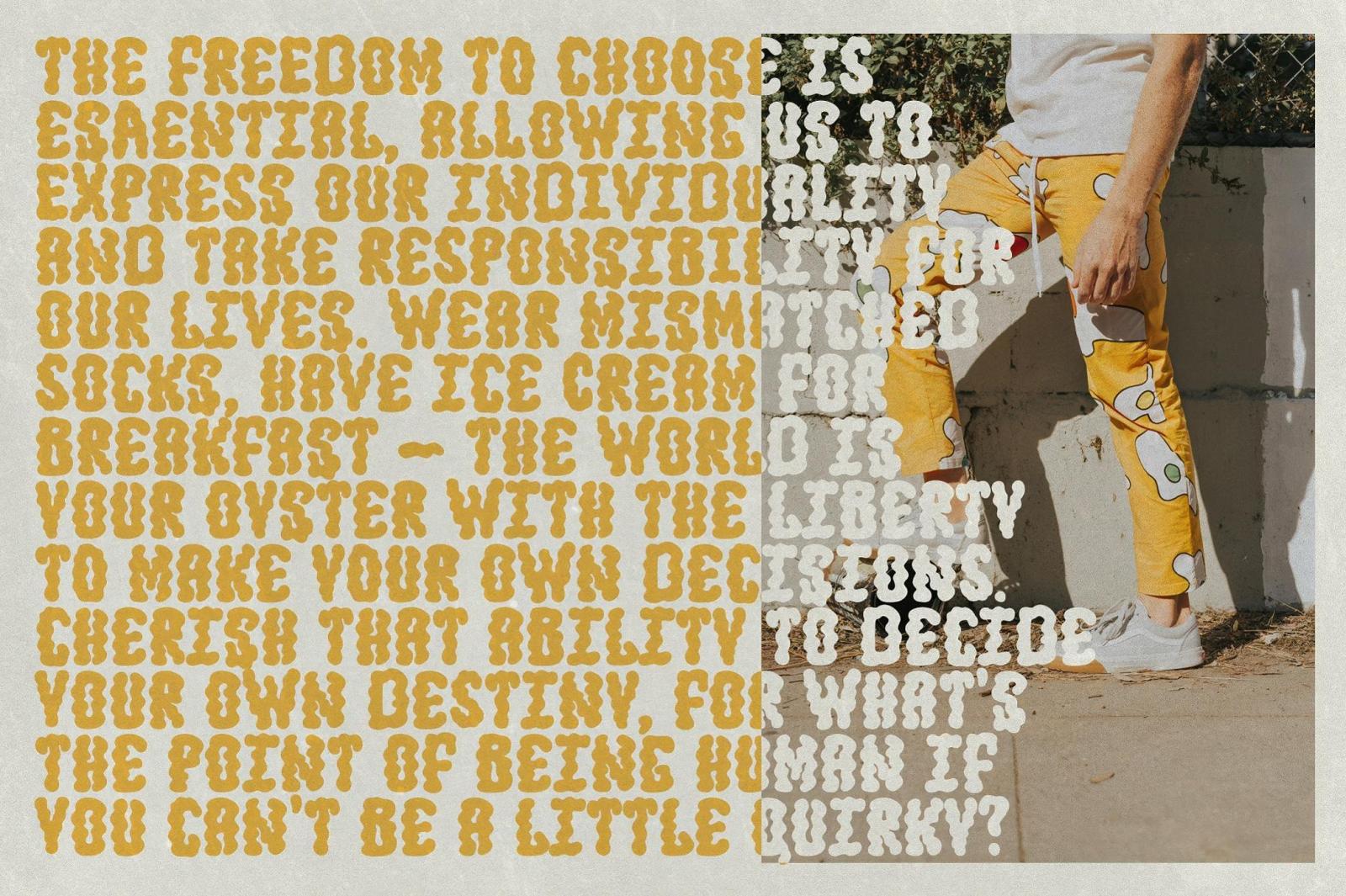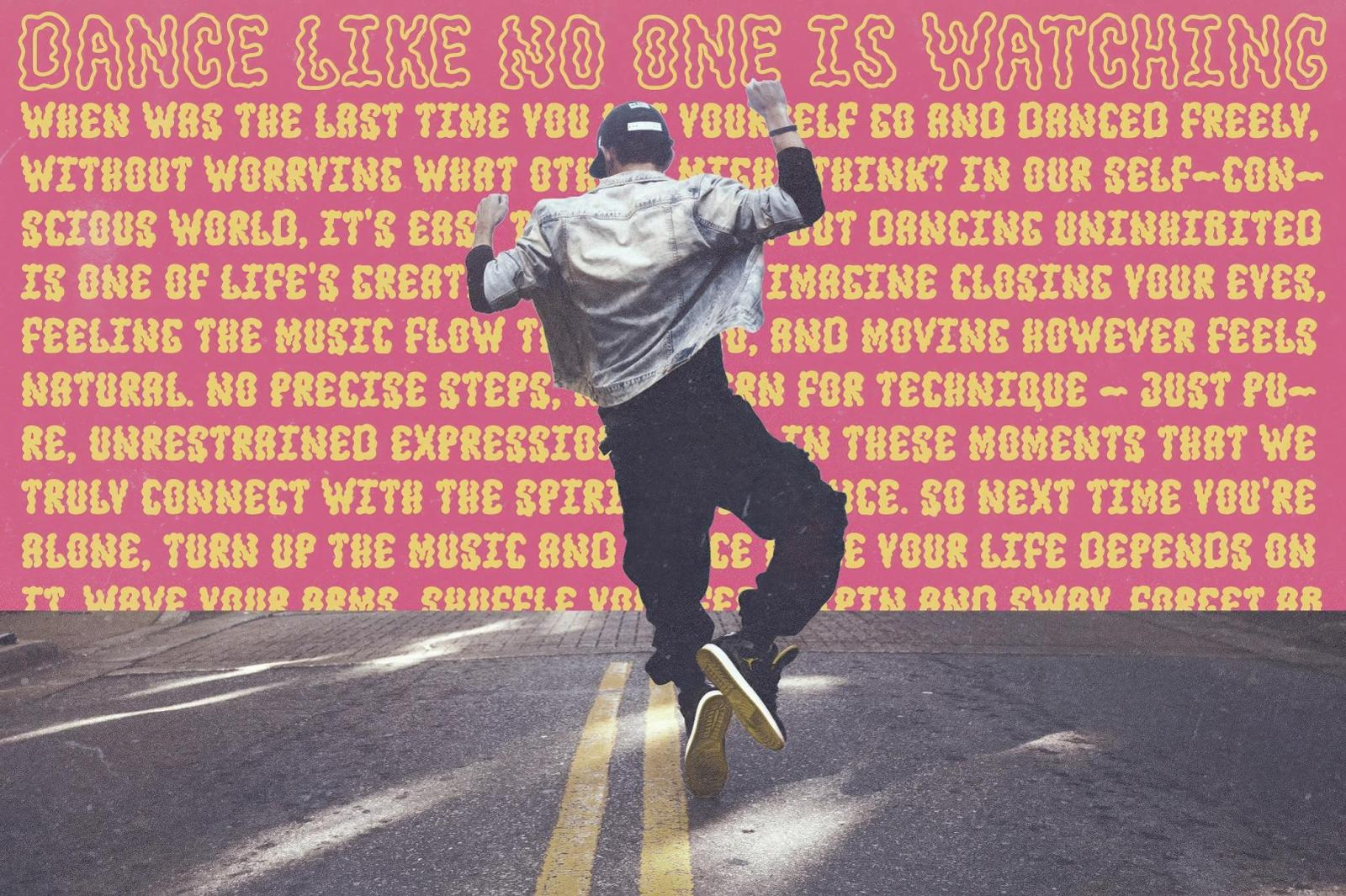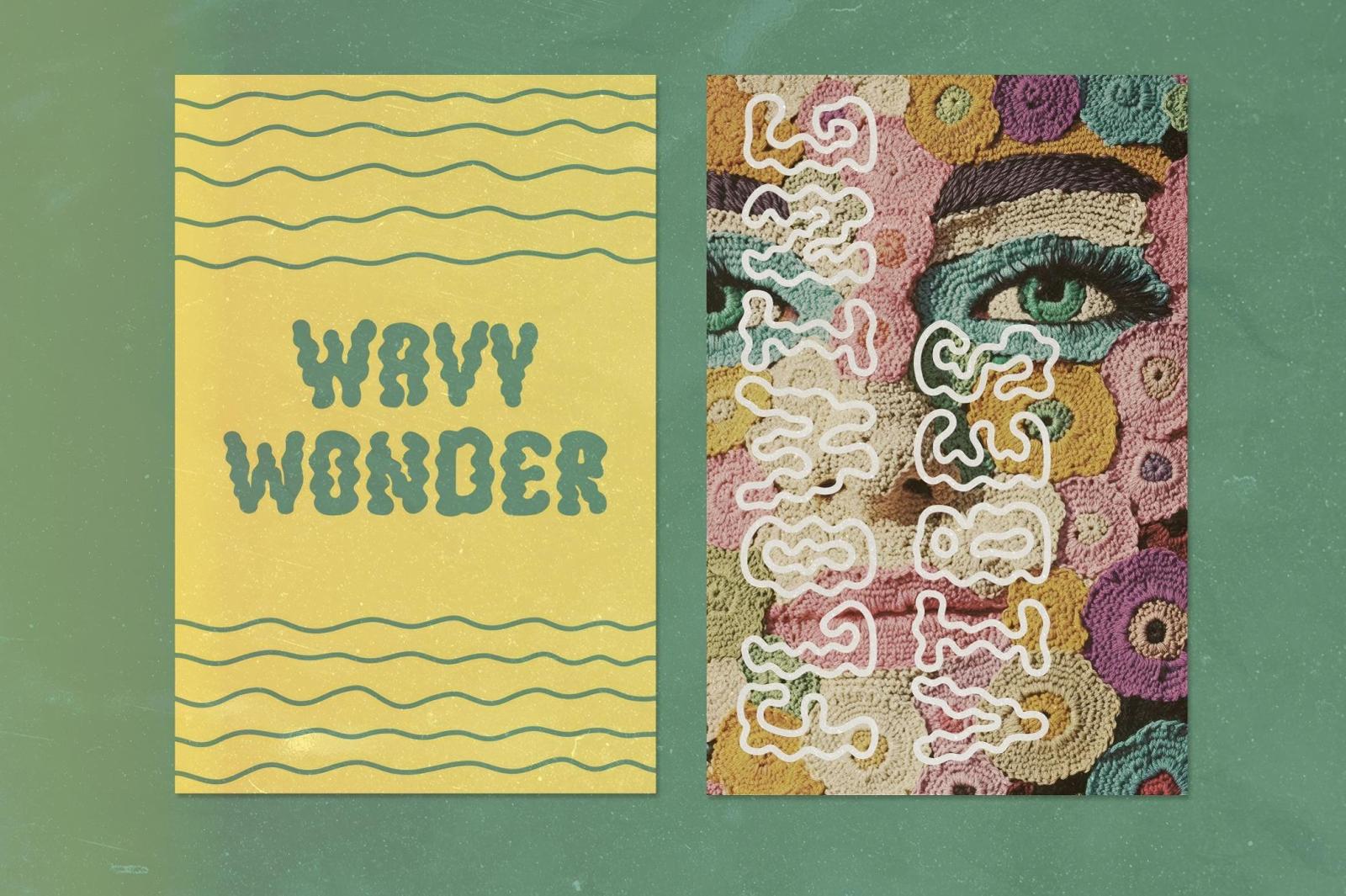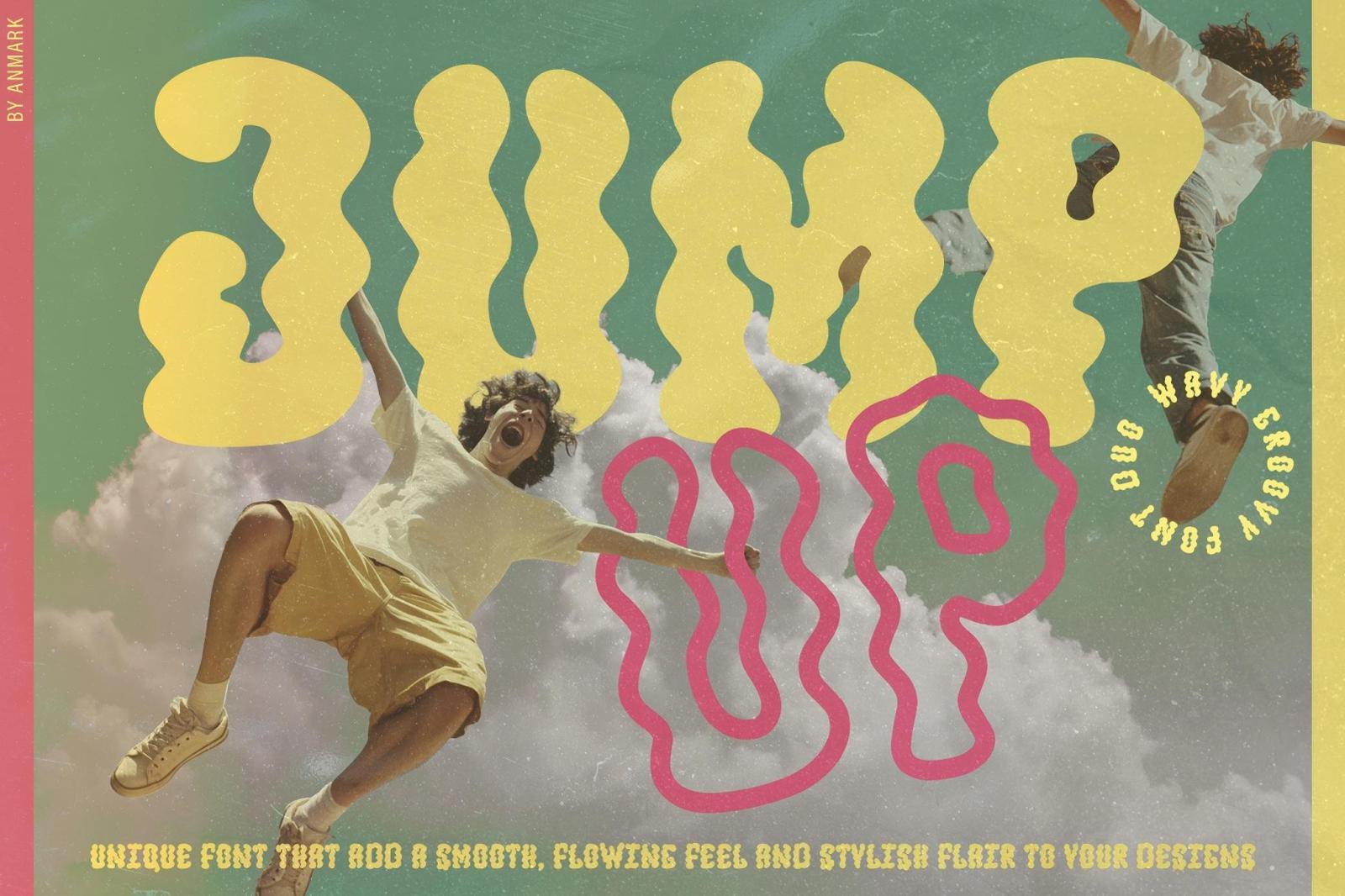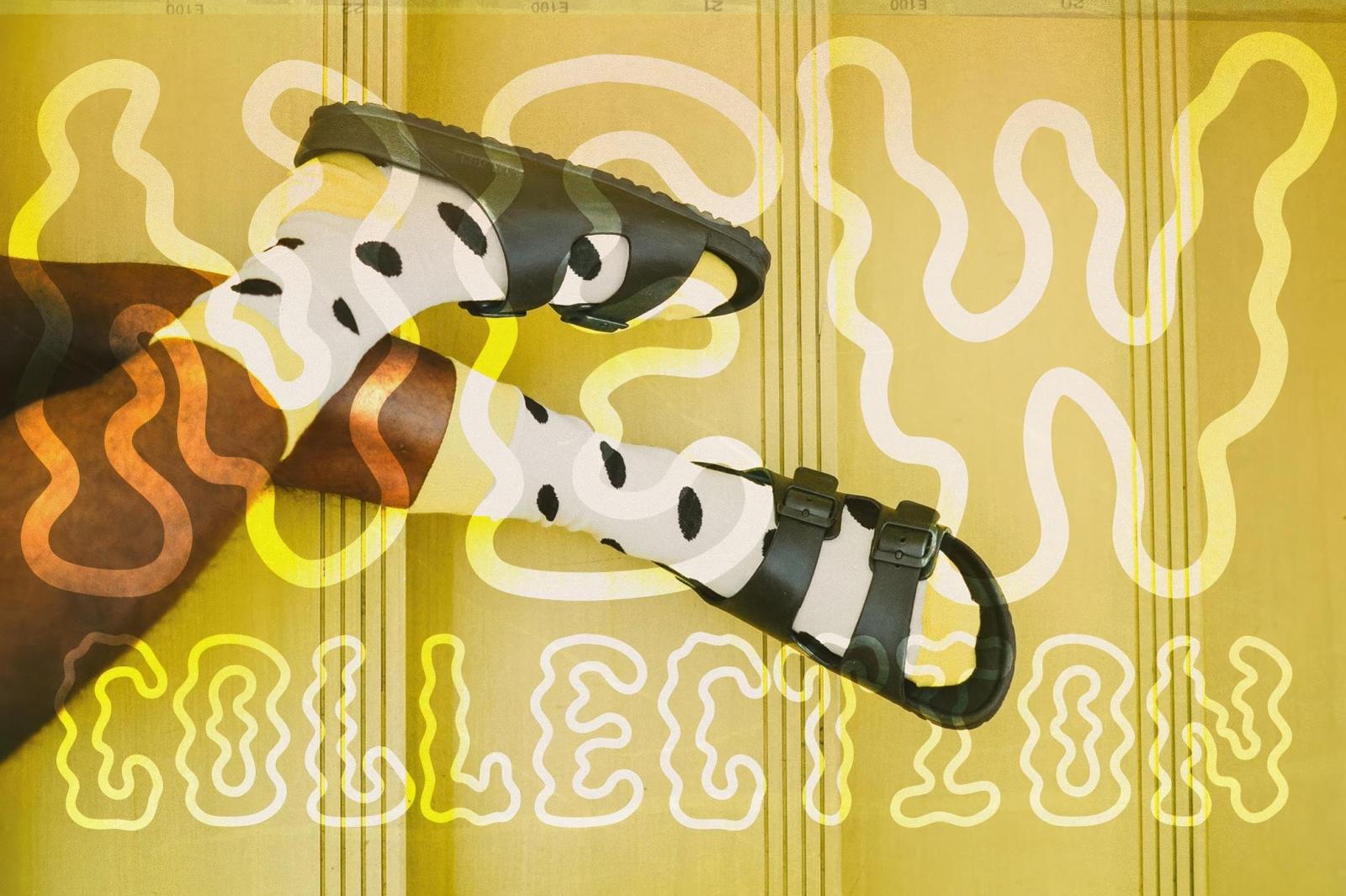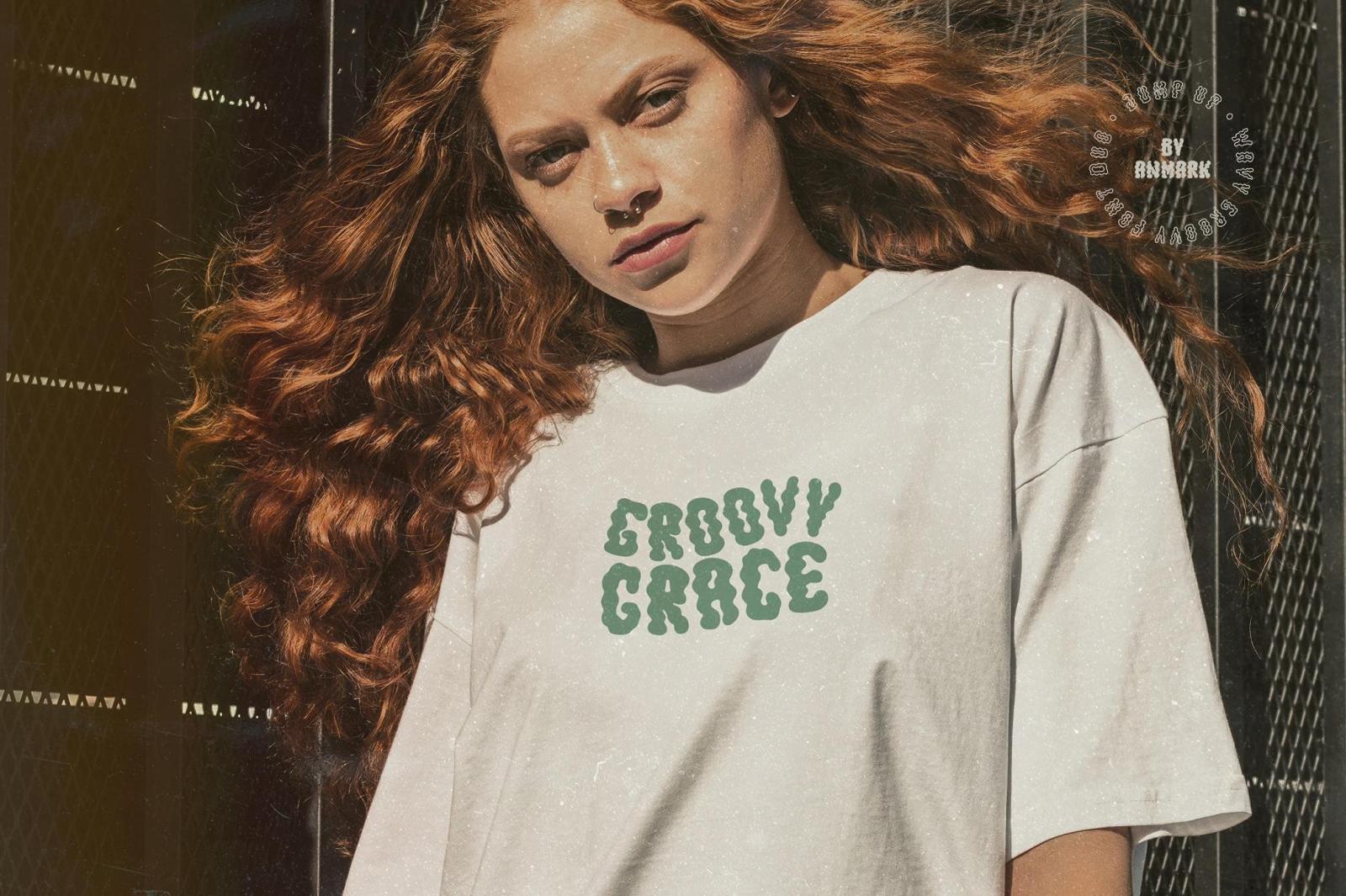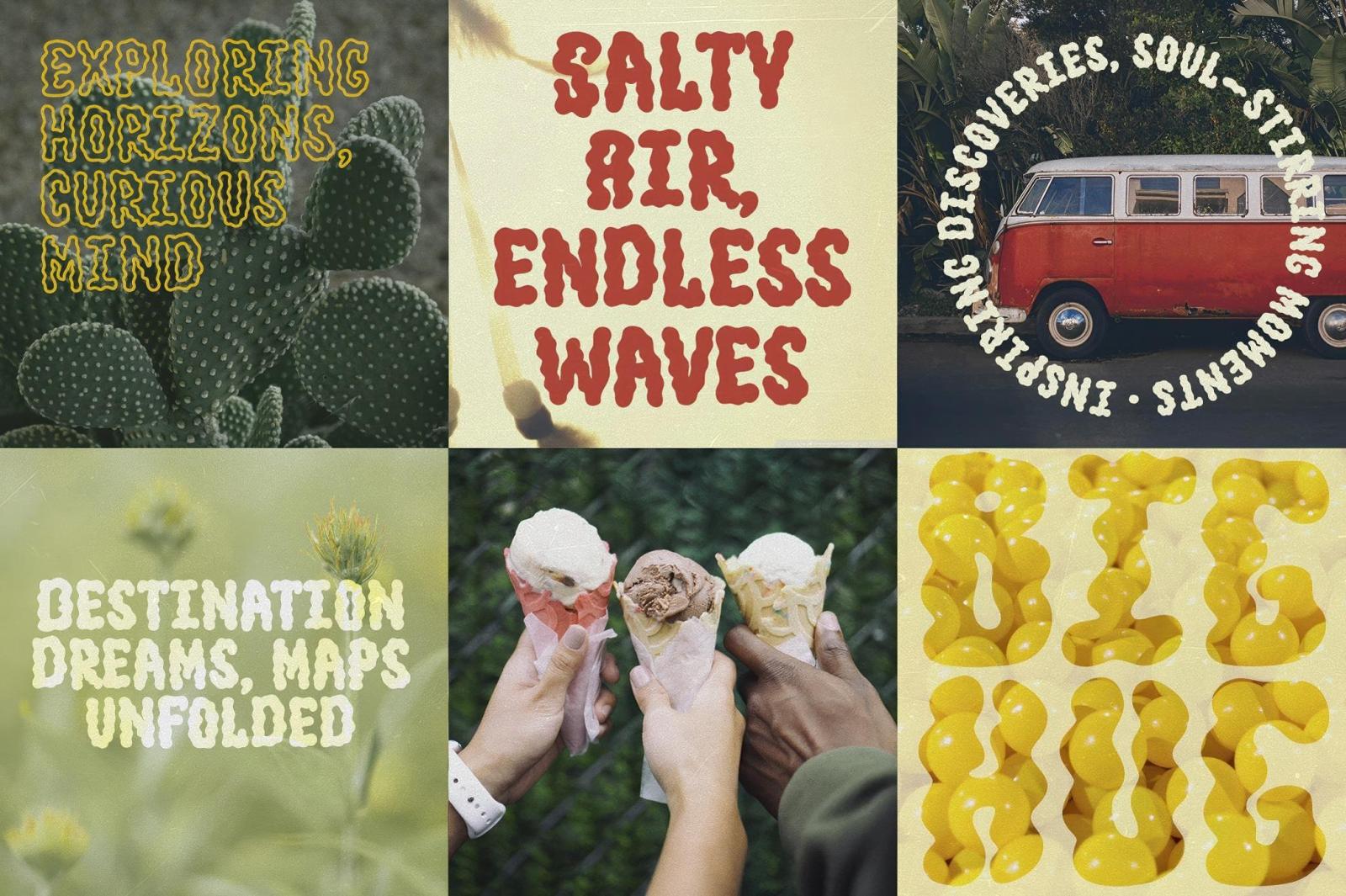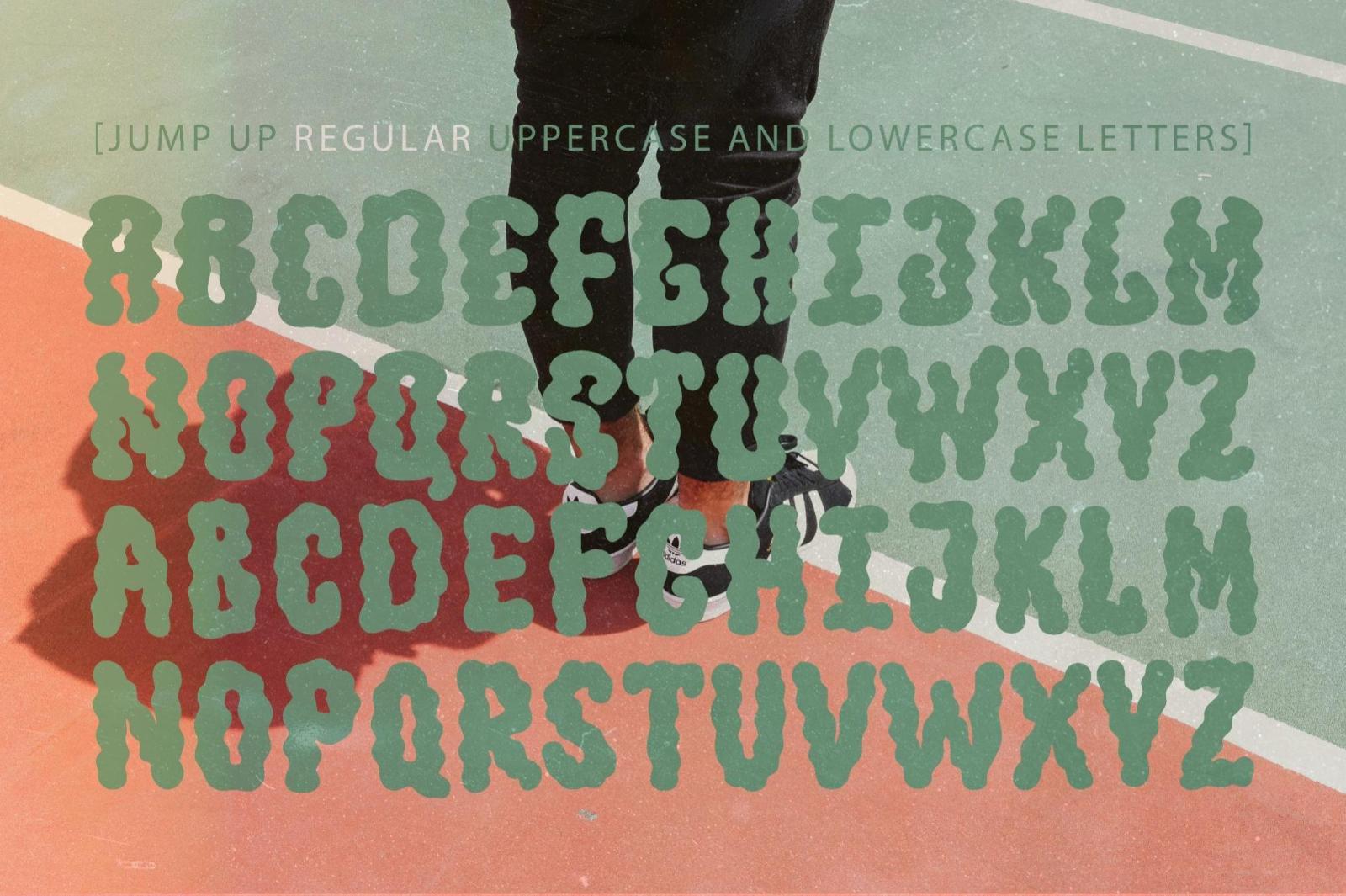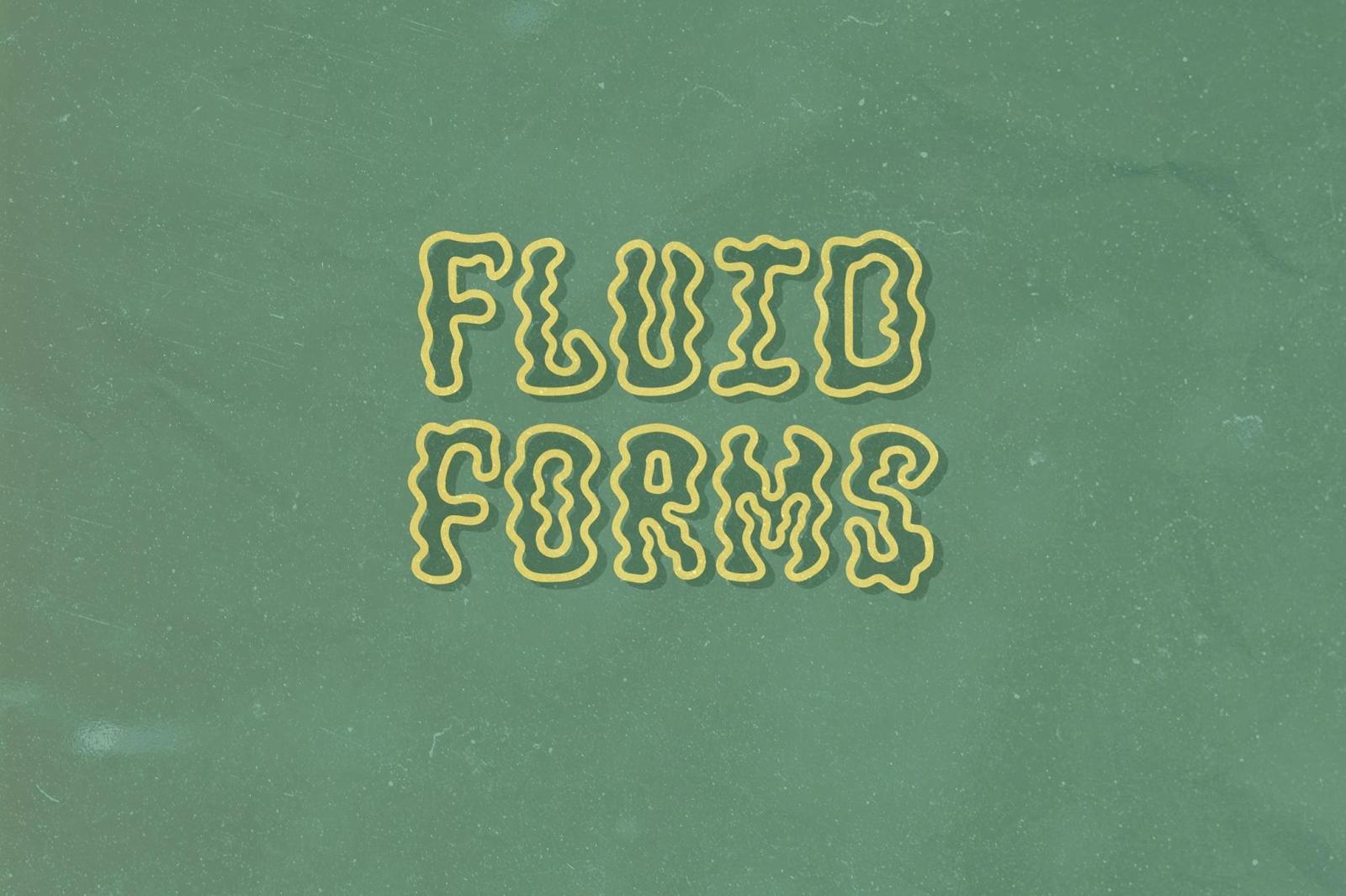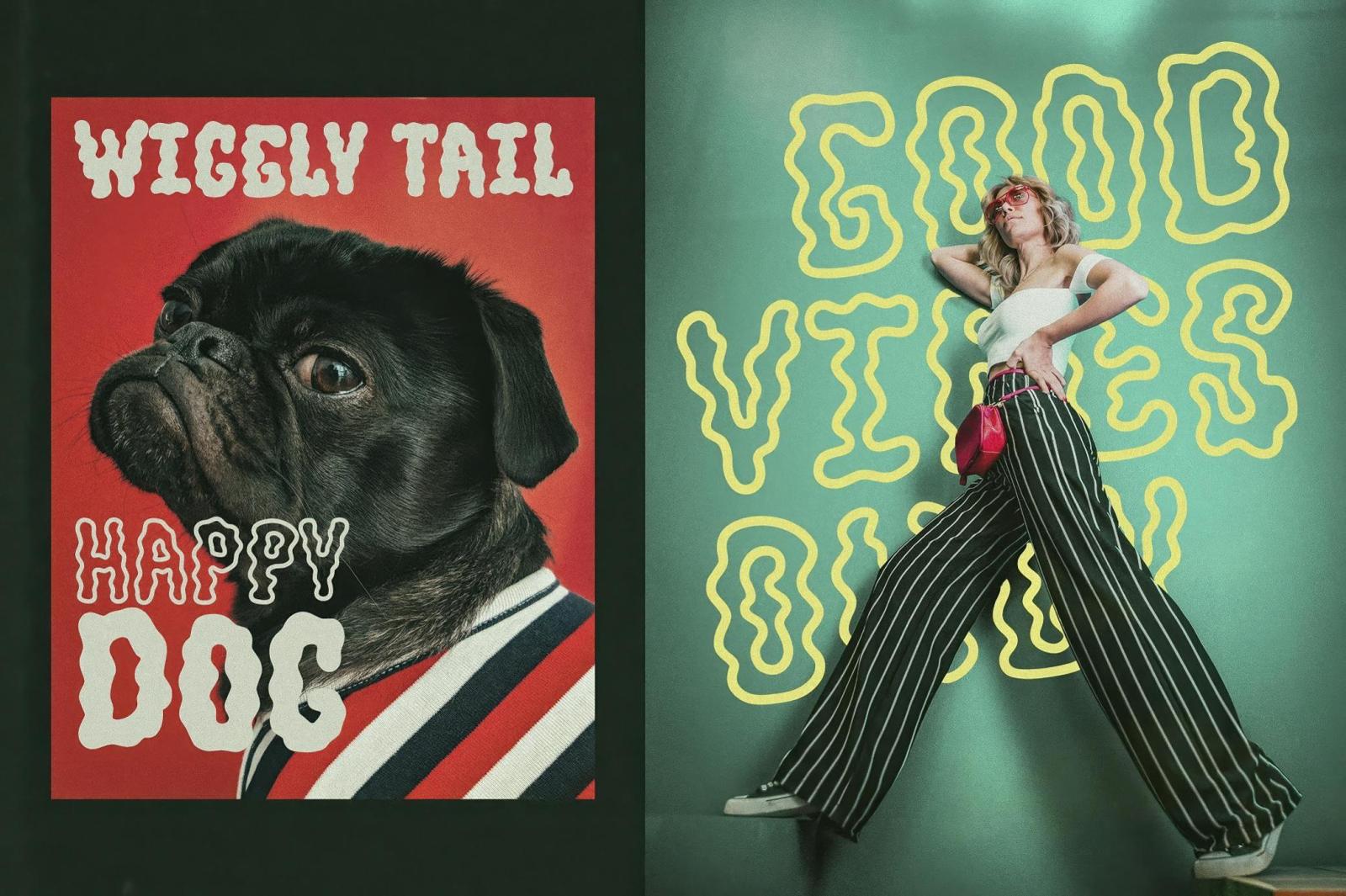
Jump Up — Wavy Groovy Font Duo
Jump Up is probably the friendliest font you've ever used: just look at how it waves its letters and sends the groovy vibes.It fluidly blends a modern minimalistic aesthetic with the playful retro of mid-century typography. The clean, wavy lines, balanced spacing, and slightly rounded edges suggest versatility and approachability, making it suitable for branding, advertising, and digital designs. Jump Up is an all-caps, including punctuation marks, numerals, and multilingual support. The font may pair well with bold sans serif or decorative fonts for contrast — yet it's good enough when used stand-alone.